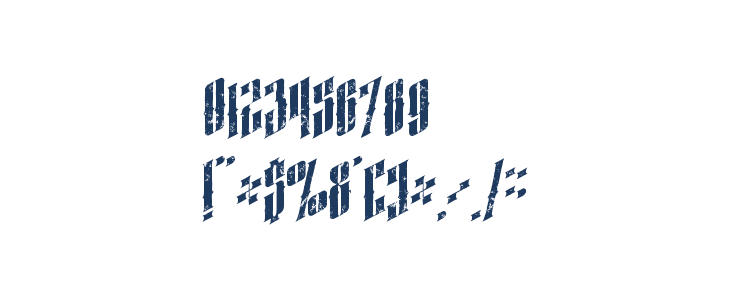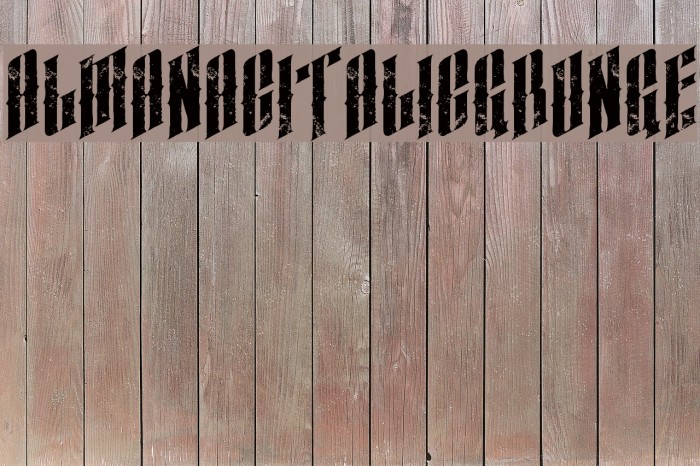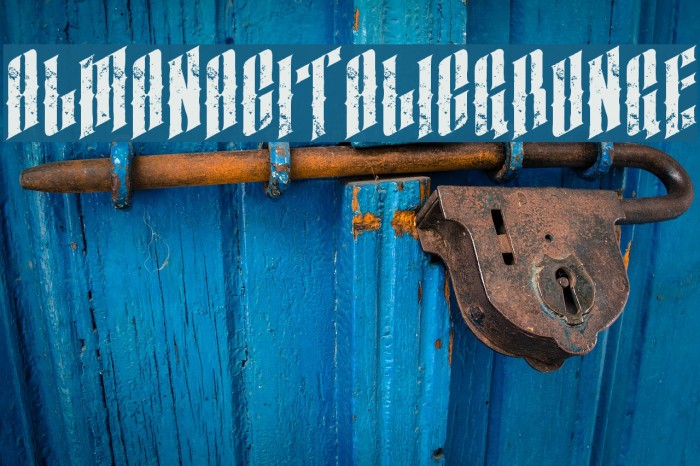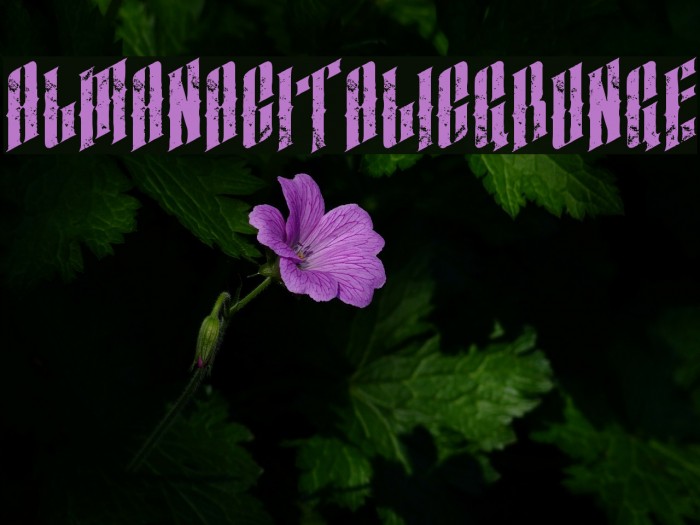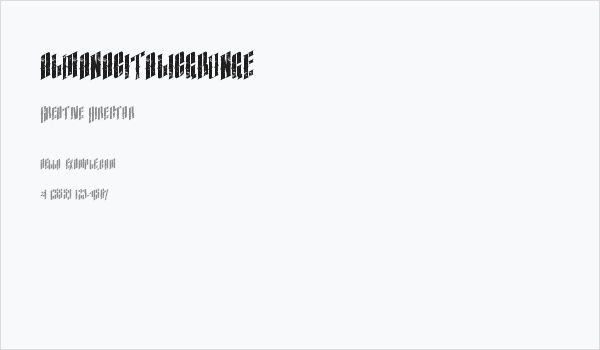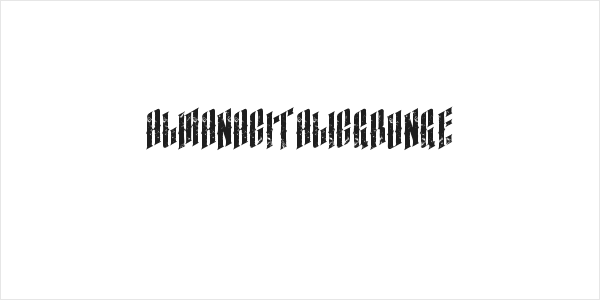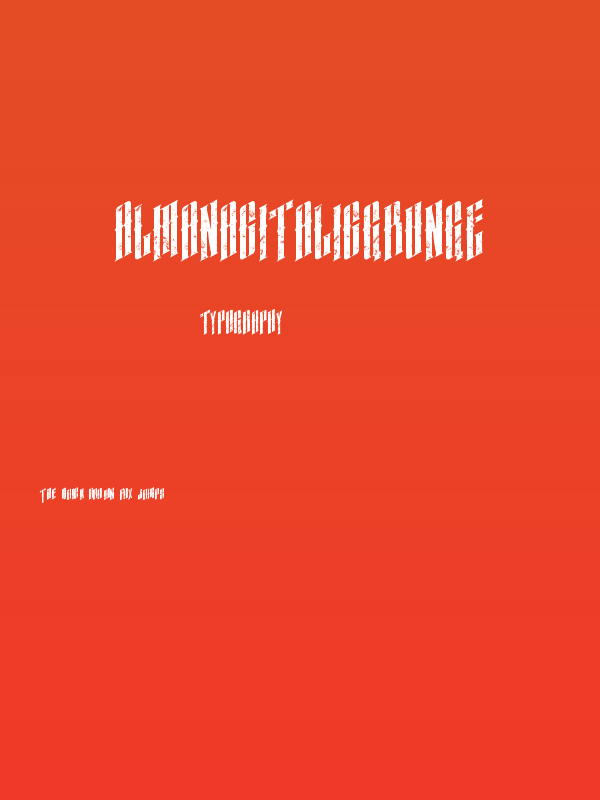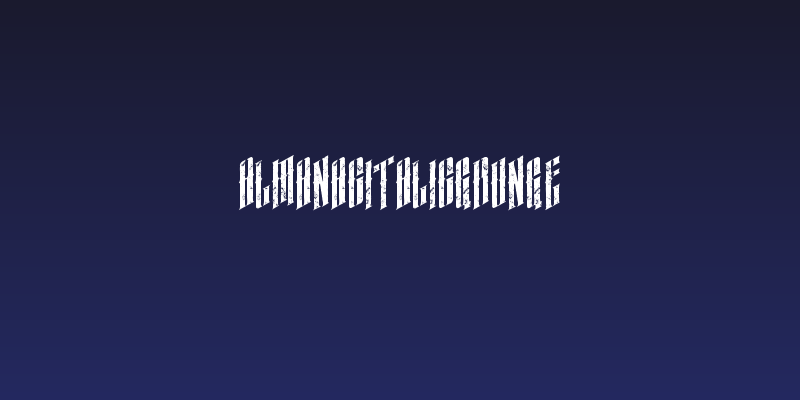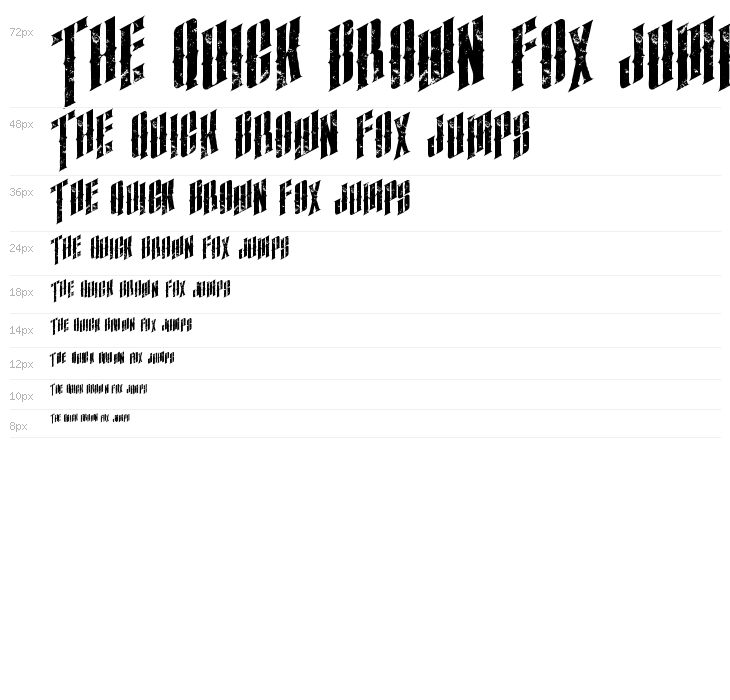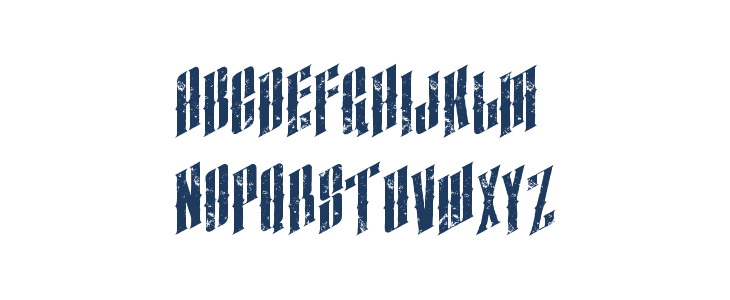
almanacitalicgrunge Font
almanacitalicgrunge Description
This font features a bold, distressed style with a grunge aesthetic. The characters are italicized, giving them a dynamic and edgy appearance. The texture is rough, with a worn-out look that suggests a vintage or industrial feel. The uppercase and lowercase letters maintain a consistent slant, enhancing the font's overall cohesion. Numbers and special characters are included, each carrying the same distressed pattern. This font is ideal for projects that require a strong, impactful visual presence.
Overall StyleGrunge, Vintage
Proposed ProjectsIdeal for music album covers, posters, urban-themed designs, and branding that requires a gritty, bold statement.